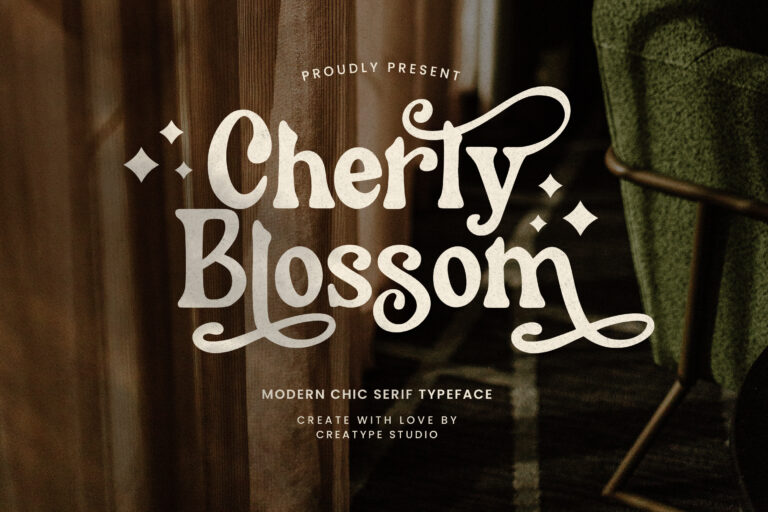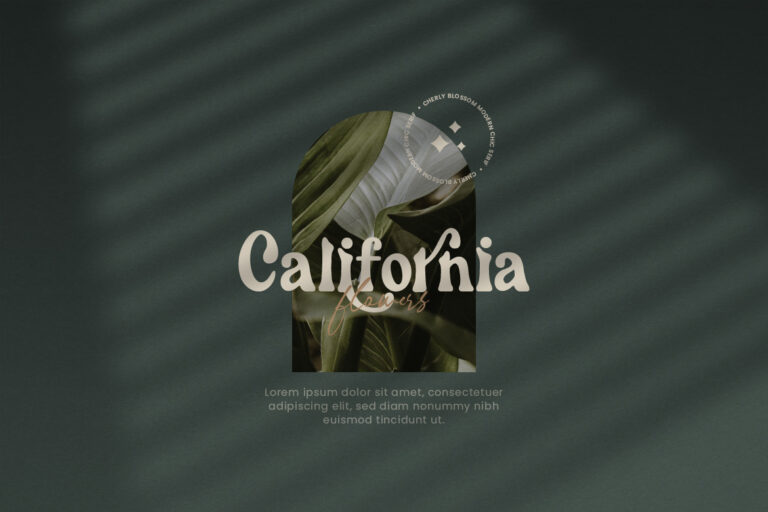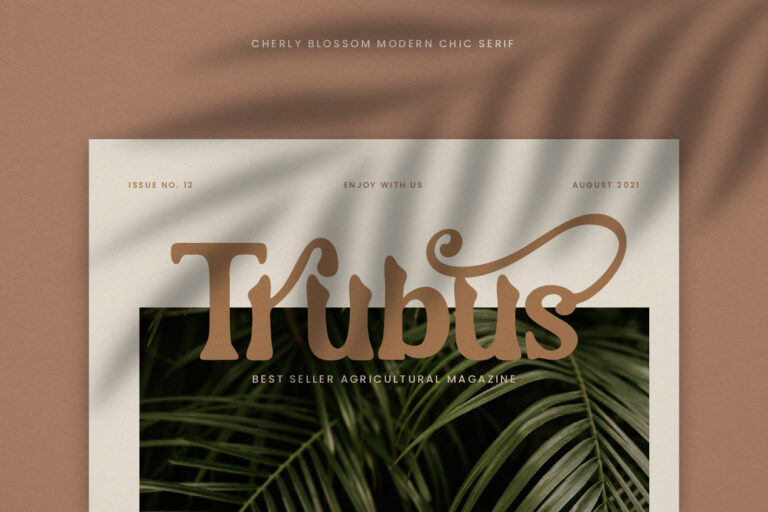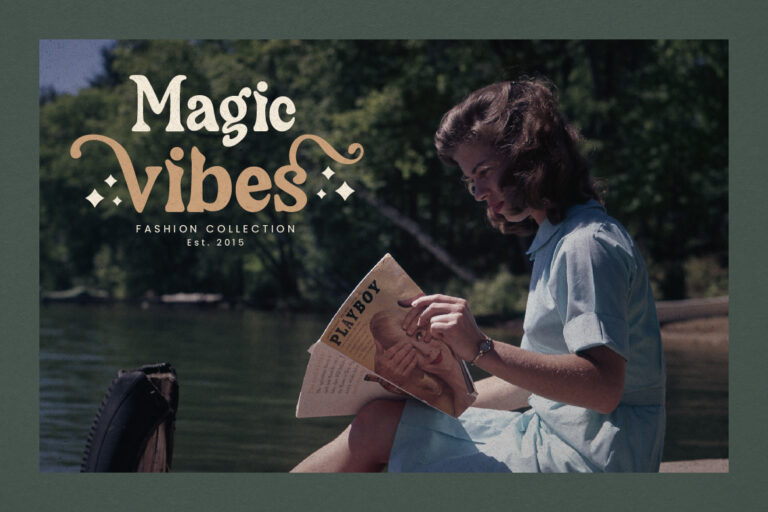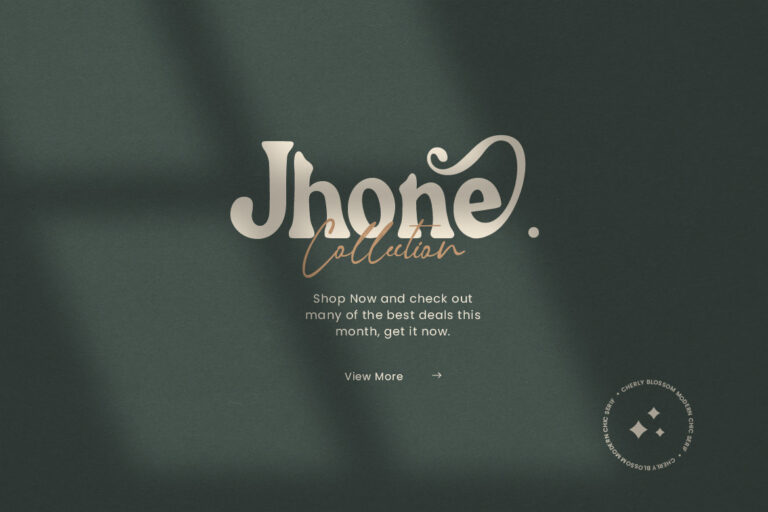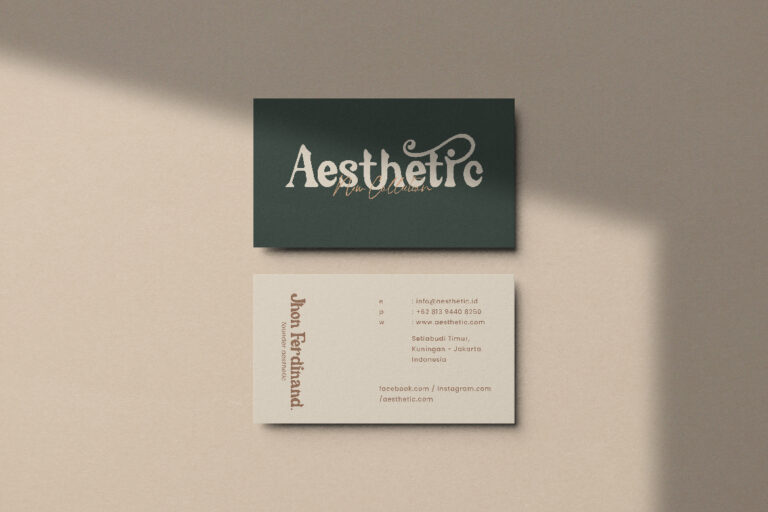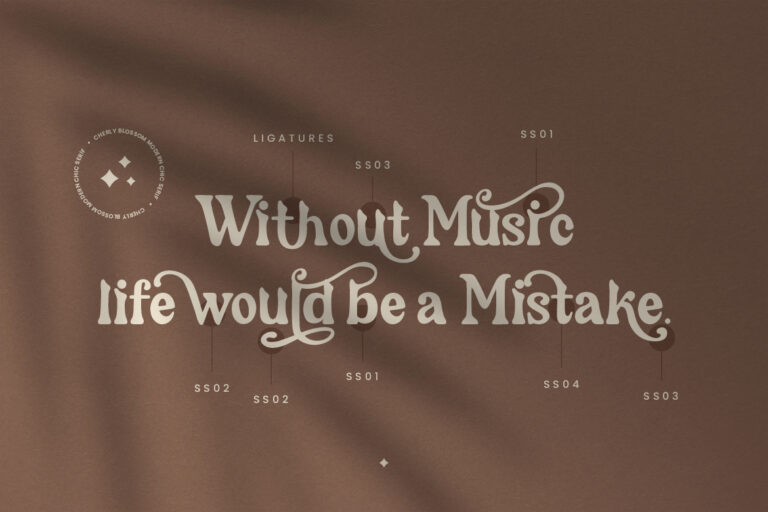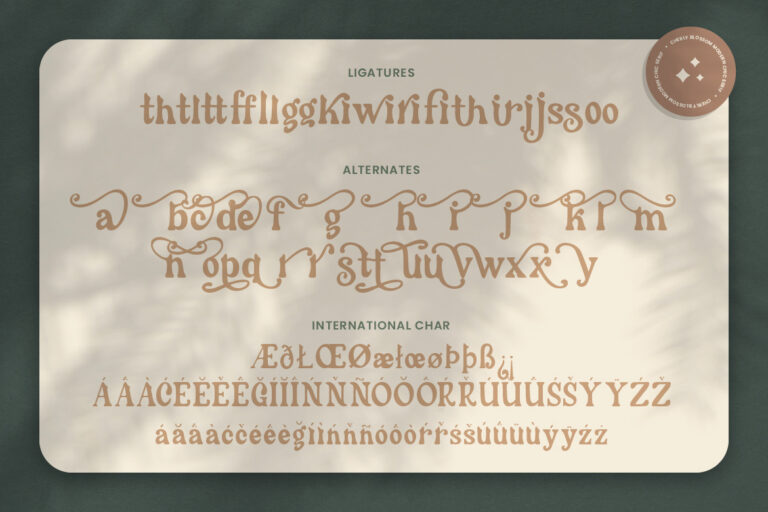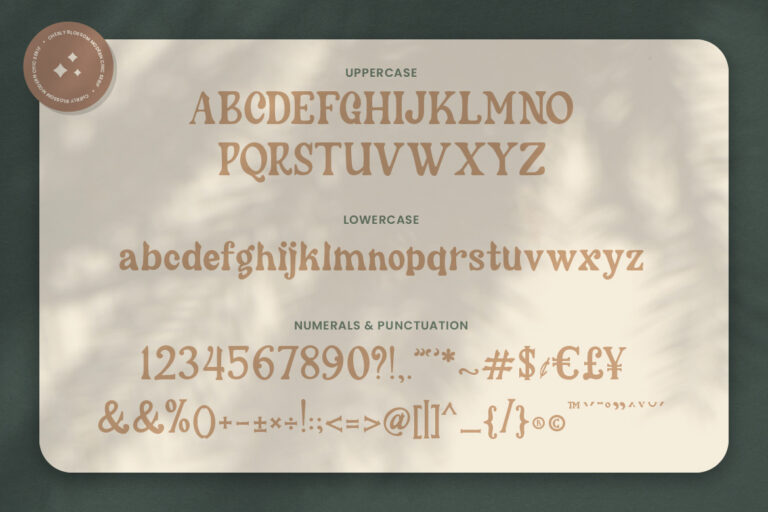
Cheryl Blossom Modern Chic Serif is a stylish font that is both retro modern with a bold font that looks elegant.
Cherly Blossom is perfect for branding projects, logo, wedding designs, social media posts, advertisements, product packaging, product designs, label, photography, watermark, invitation, stationery and any projects that need handwriting taste.
Cherly Blossom Modern Chic Serif Font